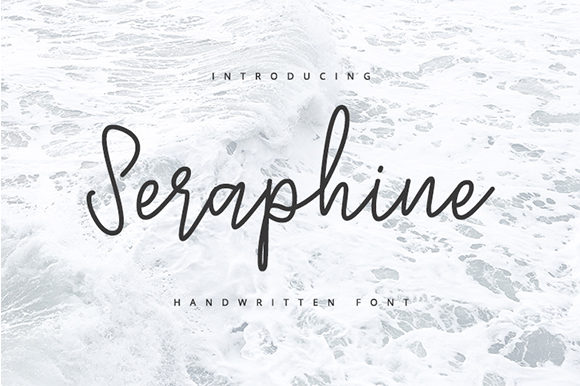
Behold Seraphine Font, a breathtaking script font that will infuse your designs with elegance and charm. Justlett, the creative genius behind this font, has crafted each letter with meticulous care, resulting in a font that exudes sophistication and grace. Seraphine Font is the perfect choice for those seeking to make a statement with their designs.
Unleash your creativity and let Seraphine Font transport you to a world of beauty and inspiration. Its flowing lines and delicate curves add a touch of allure to any project, whether it's a wedding invitation, a logo, or a social media post. This font has the power to transform ordinary words into captivating expressions that linger in the minds of your audience.
With Seraphine Font, you can effortlessly create designs that radiate warmth and personality. Its versatility knows no bounds, as it seamlessly adapts to a wide range of styles and themes. Whether you're working on a vintage-inspired project or a modern, minimalist design, Seraphine Font will elevate your work to new heights.
Step into the world of Seraphine Font and discover a font that captures the essence of timeless beauty. Its carefully crafted details and enchanting charm will leave you captivated, inspiring you to create designs that leave a lasting impression. Embrace the elegance of Seraphine Font and let your creativity soar!